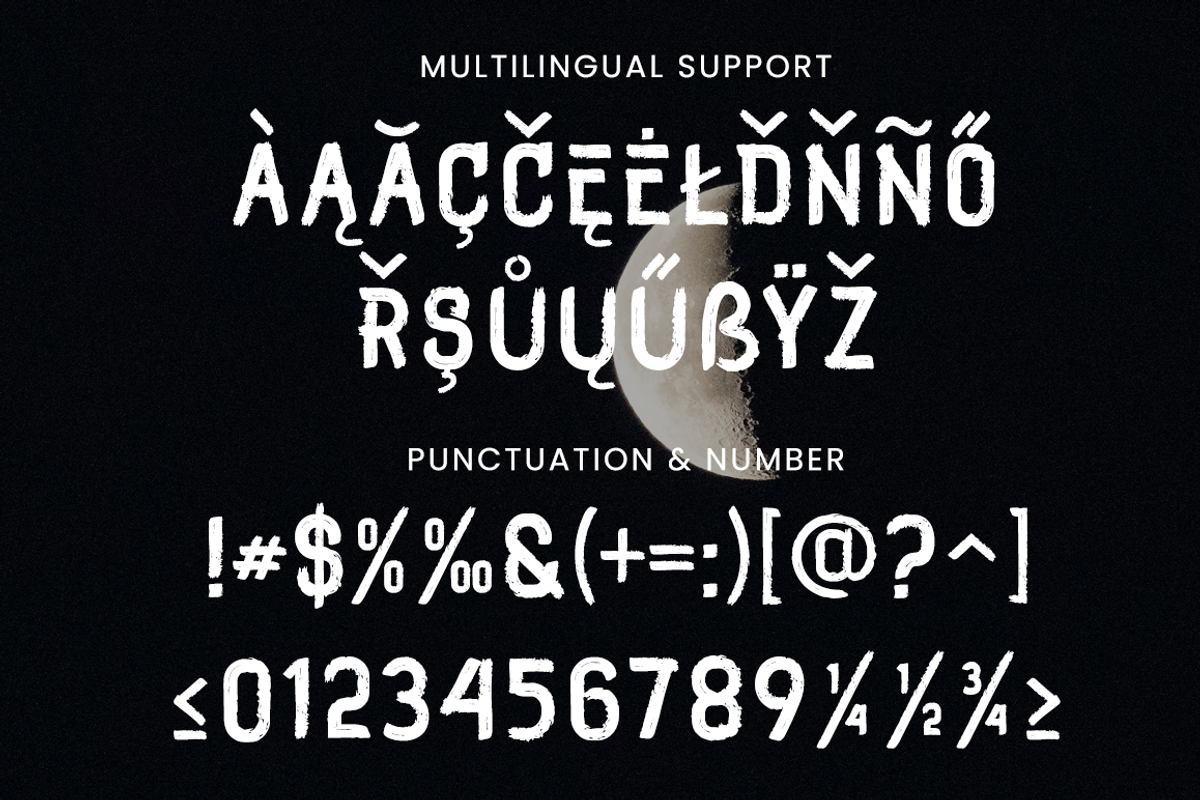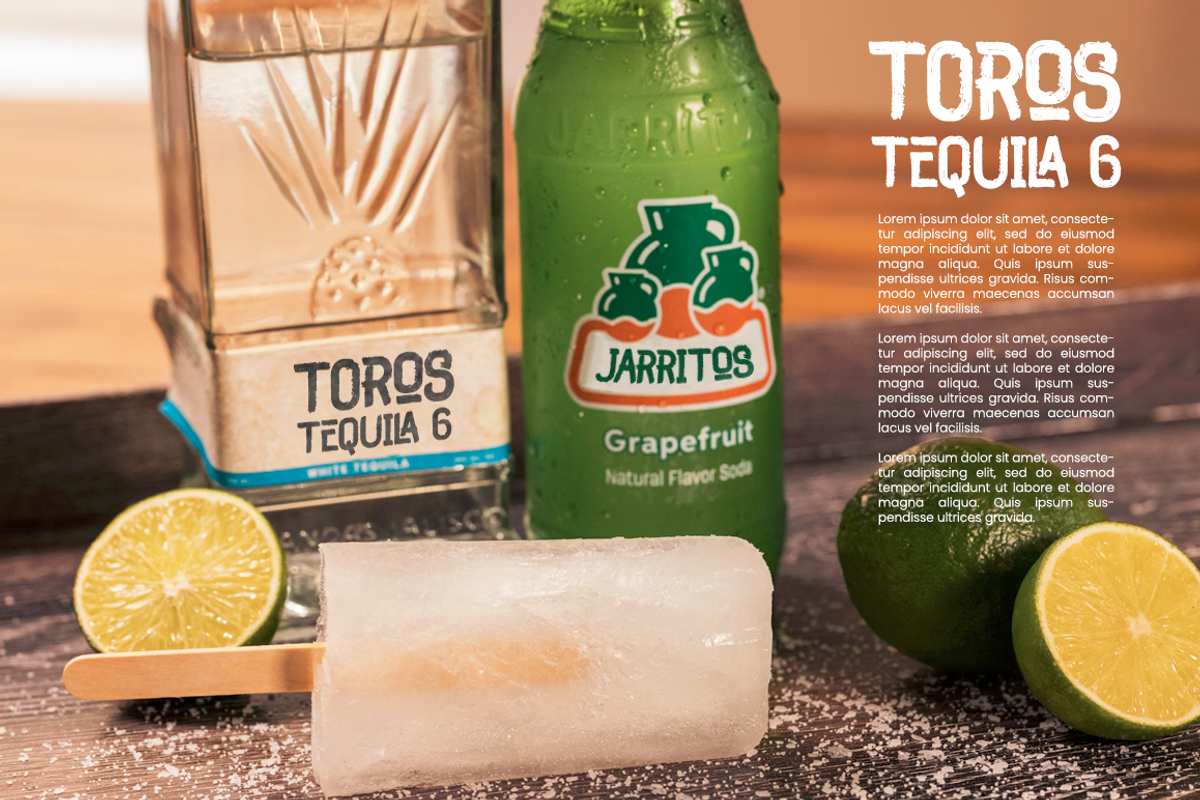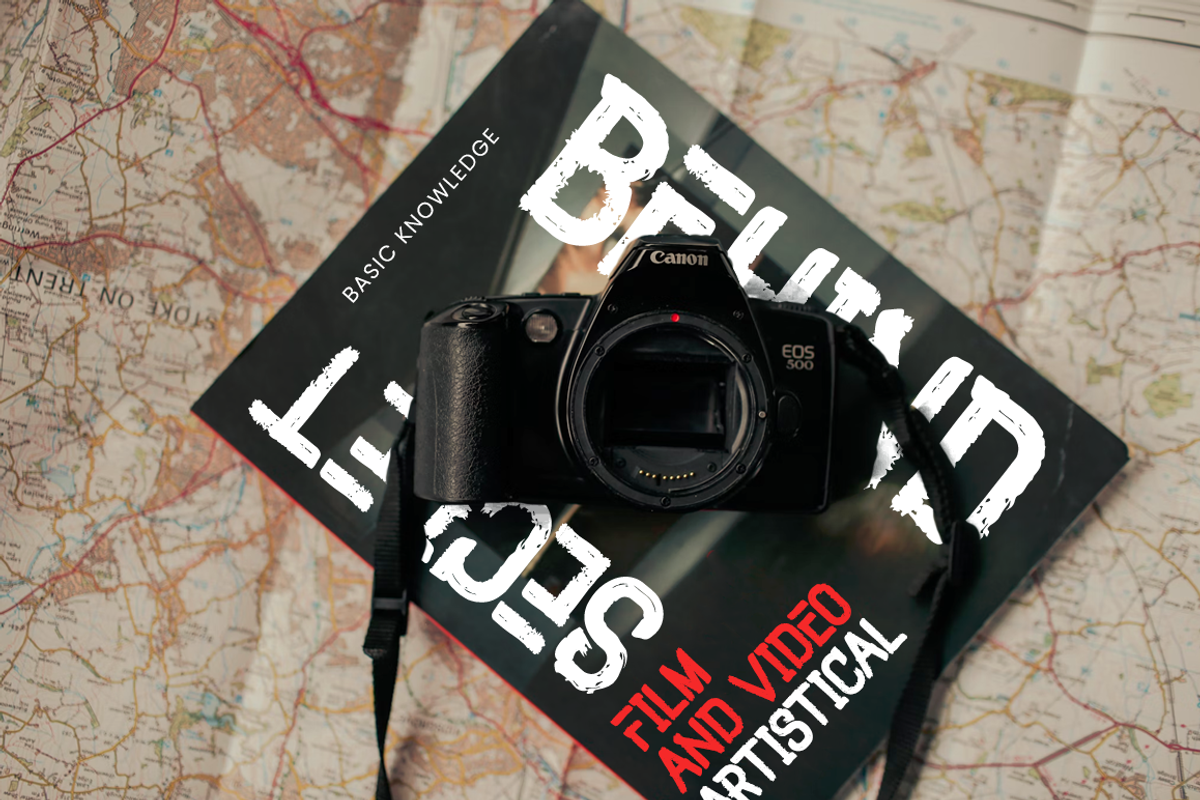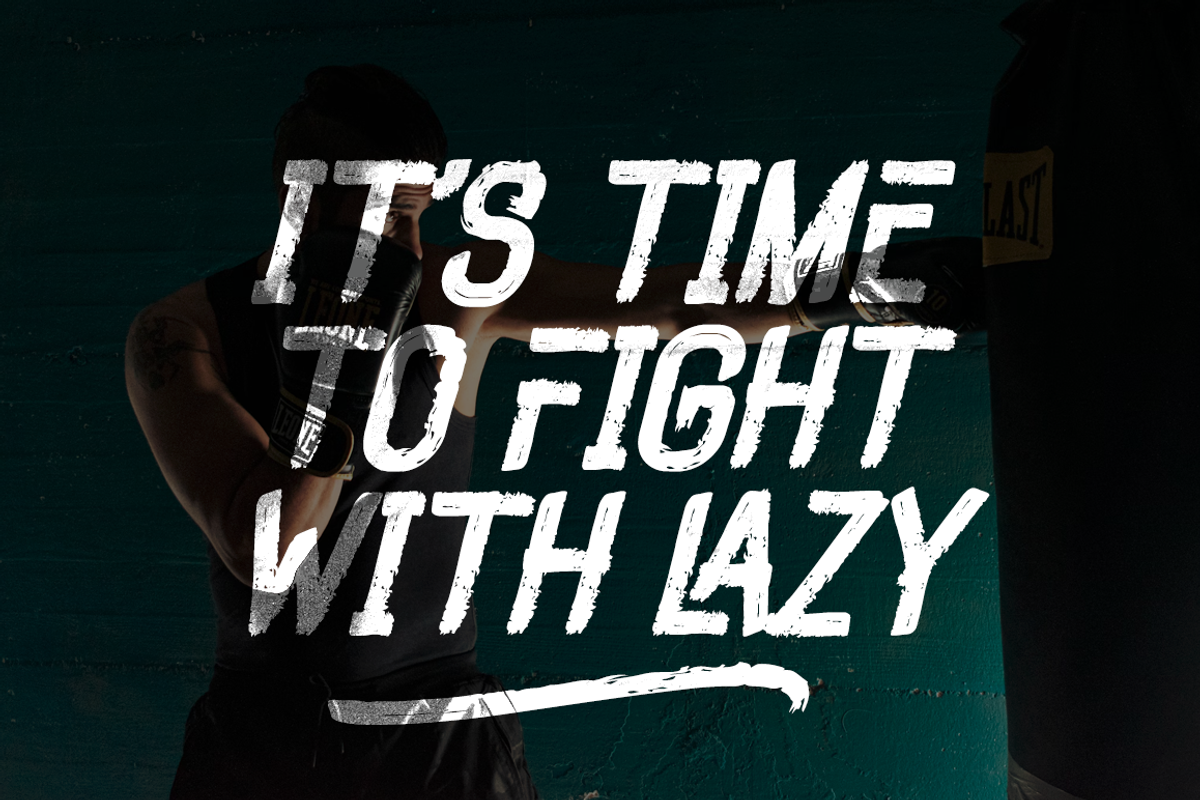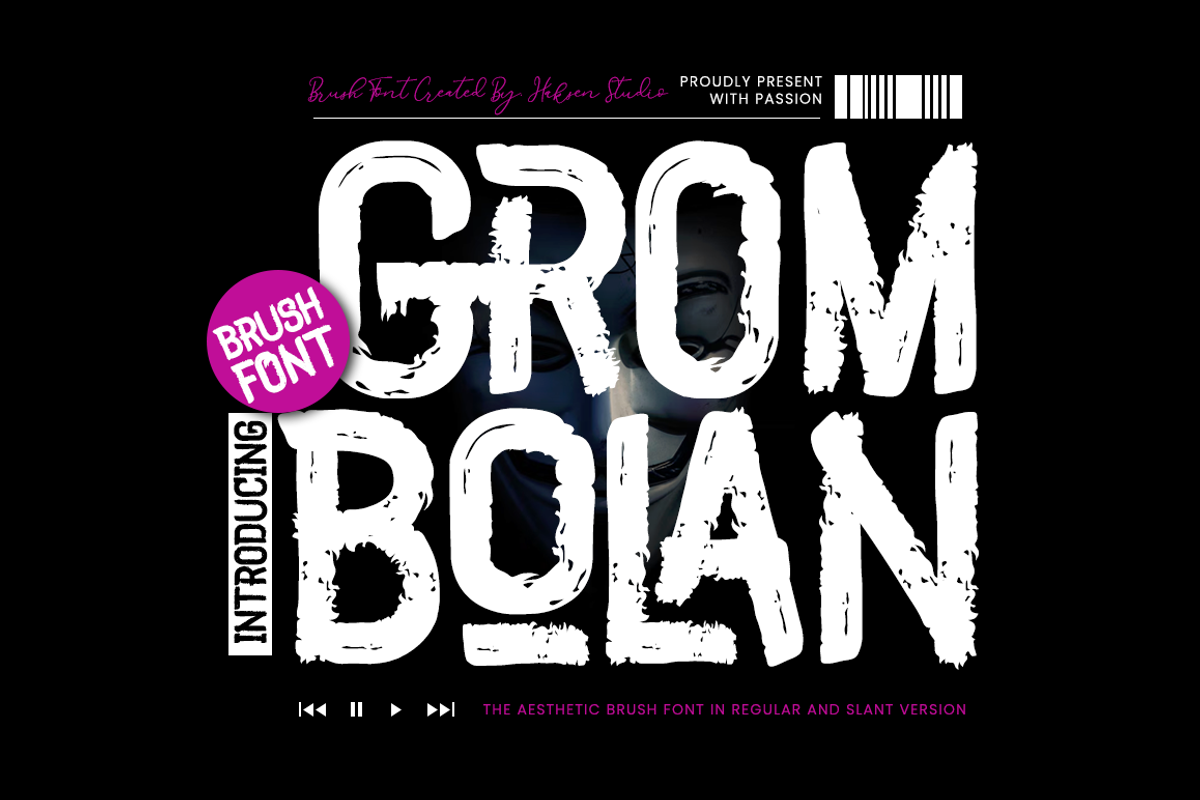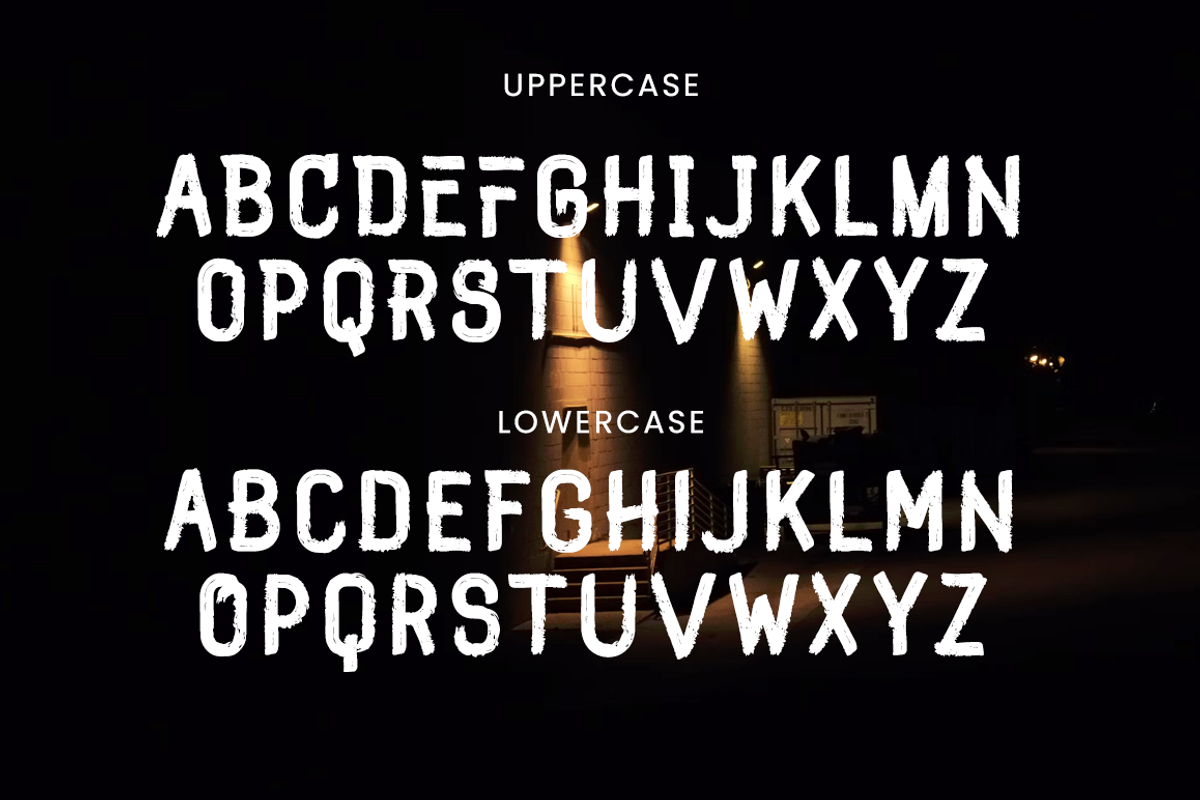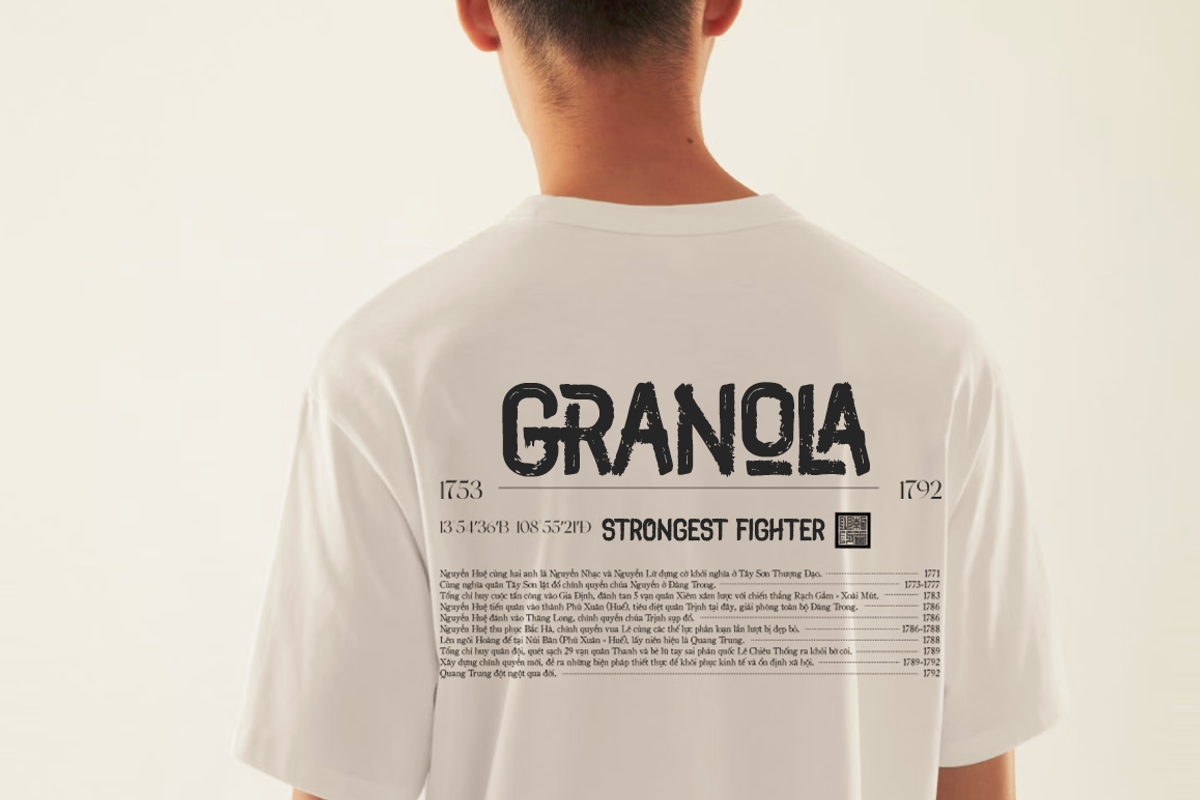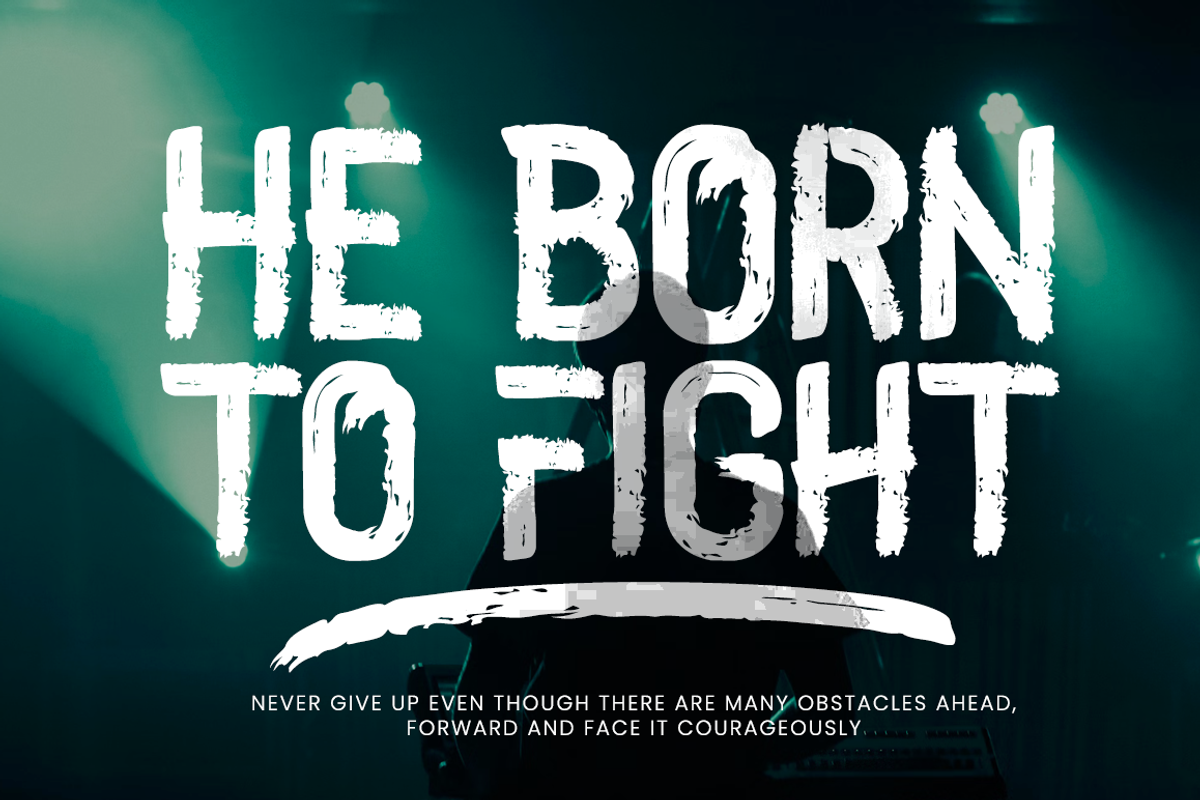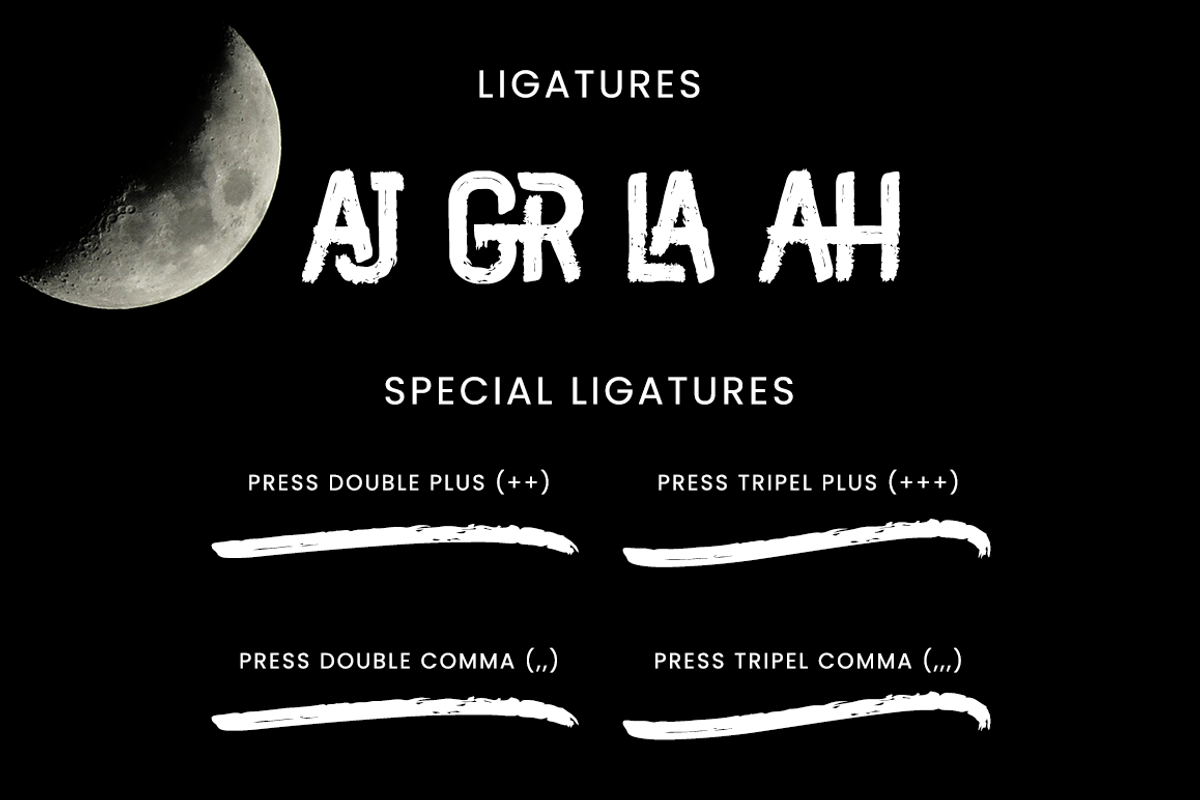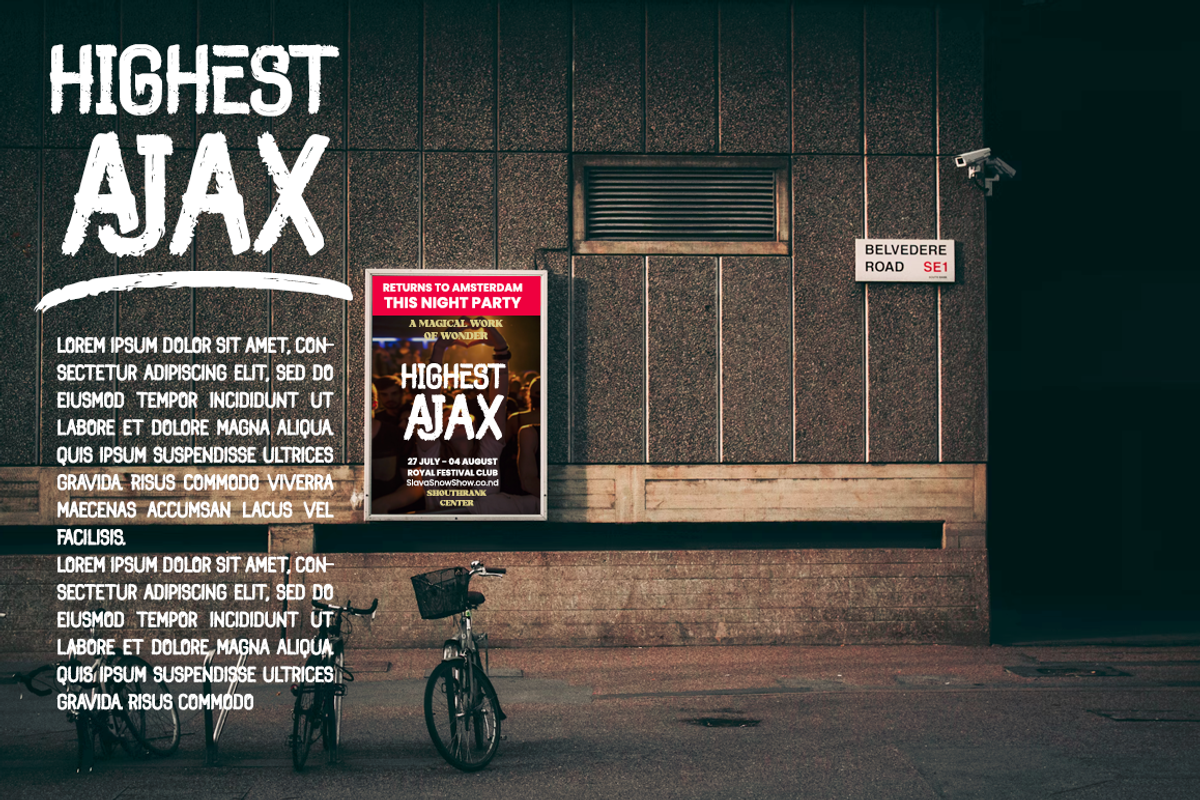
GROMBOLAN
GROMBOLAN is a Strong brush font display style with unique anatomy every letter. Provide variant alternates and ligatures make the design letter looks incredible. Honestly it works perfectly for headlines, logos, posters, packaging and much more.
- Regular and Italic version -Character set A-Z in uppercase styles
- Alternates in Uppercase
- Ligatures in uppercase
- Accented Characters
- Multiple Languages Supported